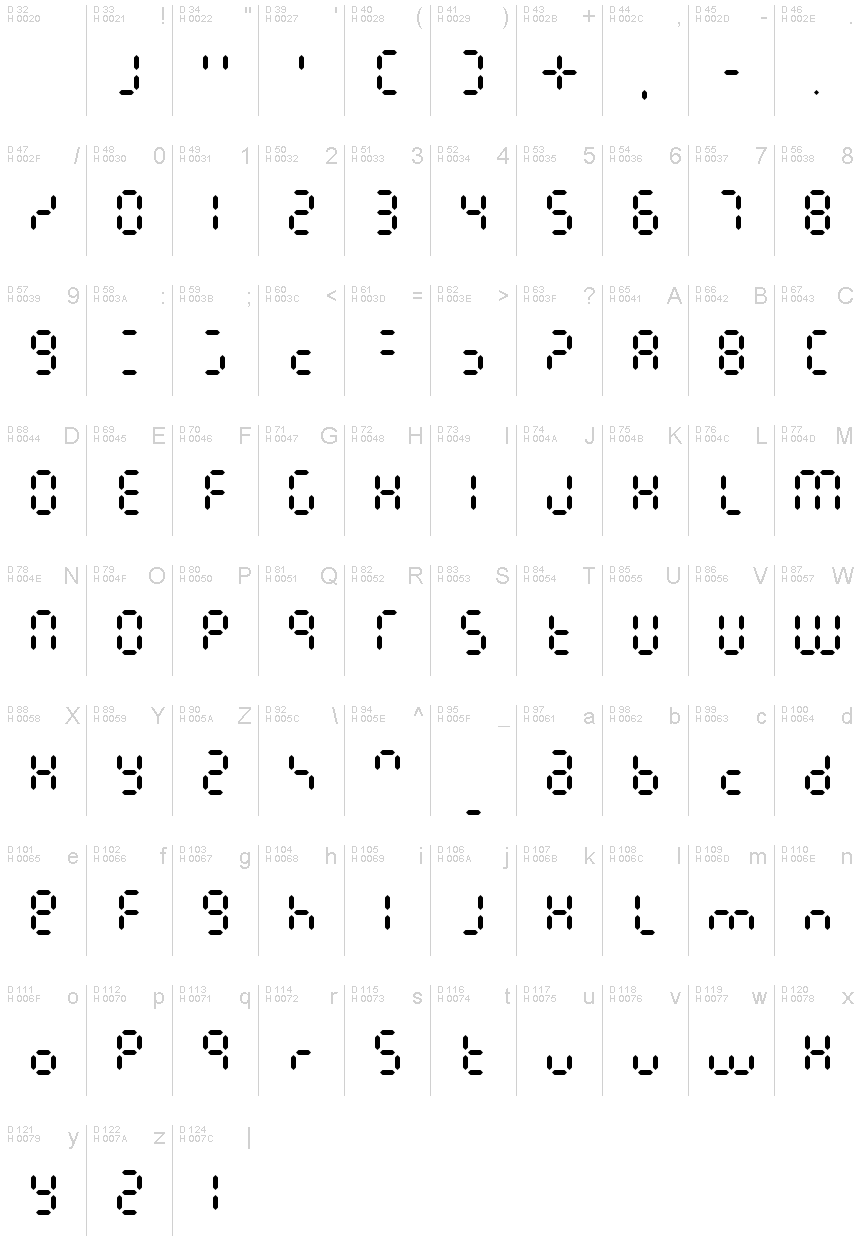
Calculatrix 7 was built with FontStruct Designer description: <p>Calculator font with a 7-segment display. This should bring many of you back to school, but in a good way, I hope.</p>
<p>This one belongs to a small family called <a href="http://fontstruct.com/gallery/tag/58/Segment" rel="nofollow" target="_blank">Calculatrix</a>.</p>
<p>I've allowed "MWmw+" to break the grid because they were impossible to render otherwise...</p>